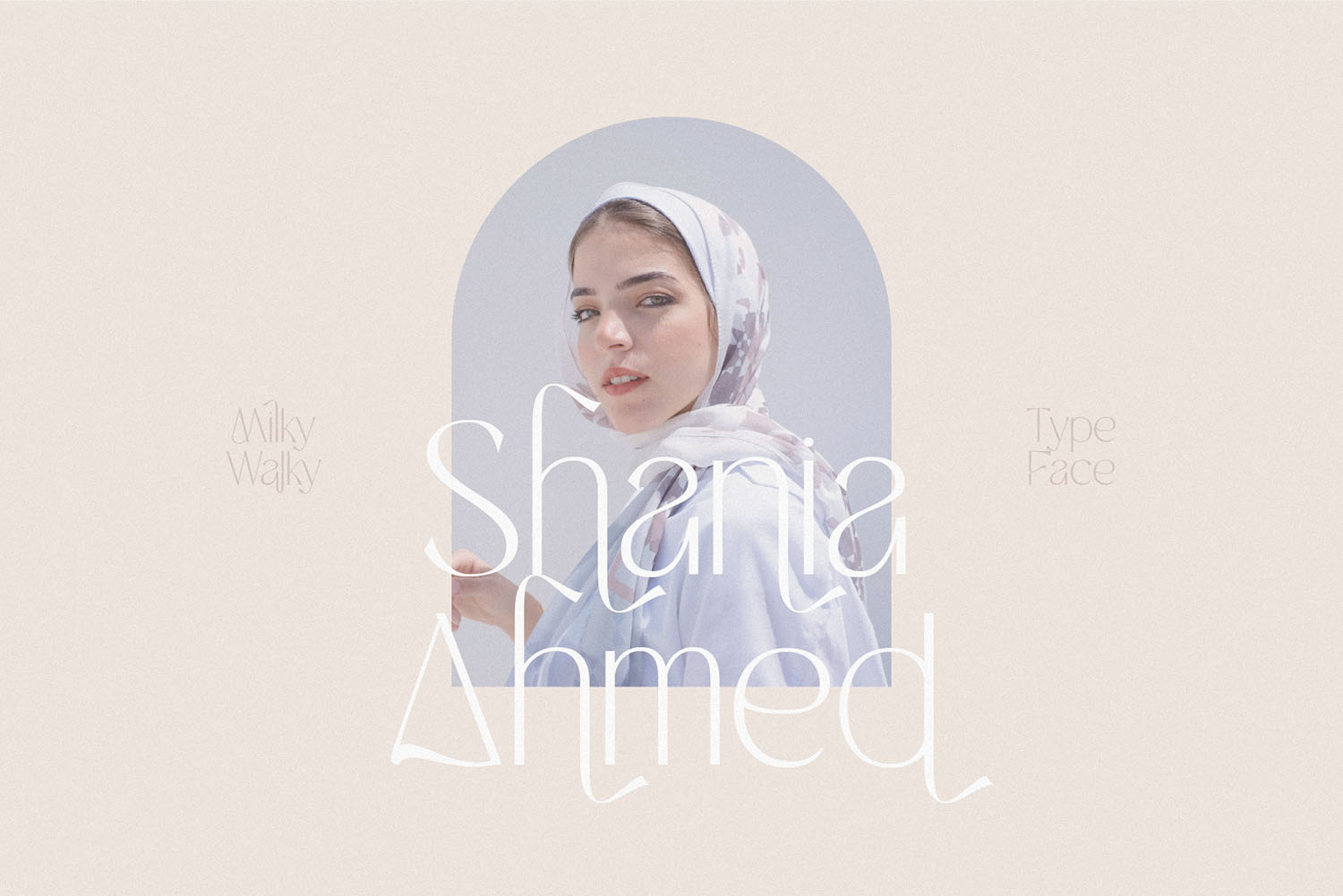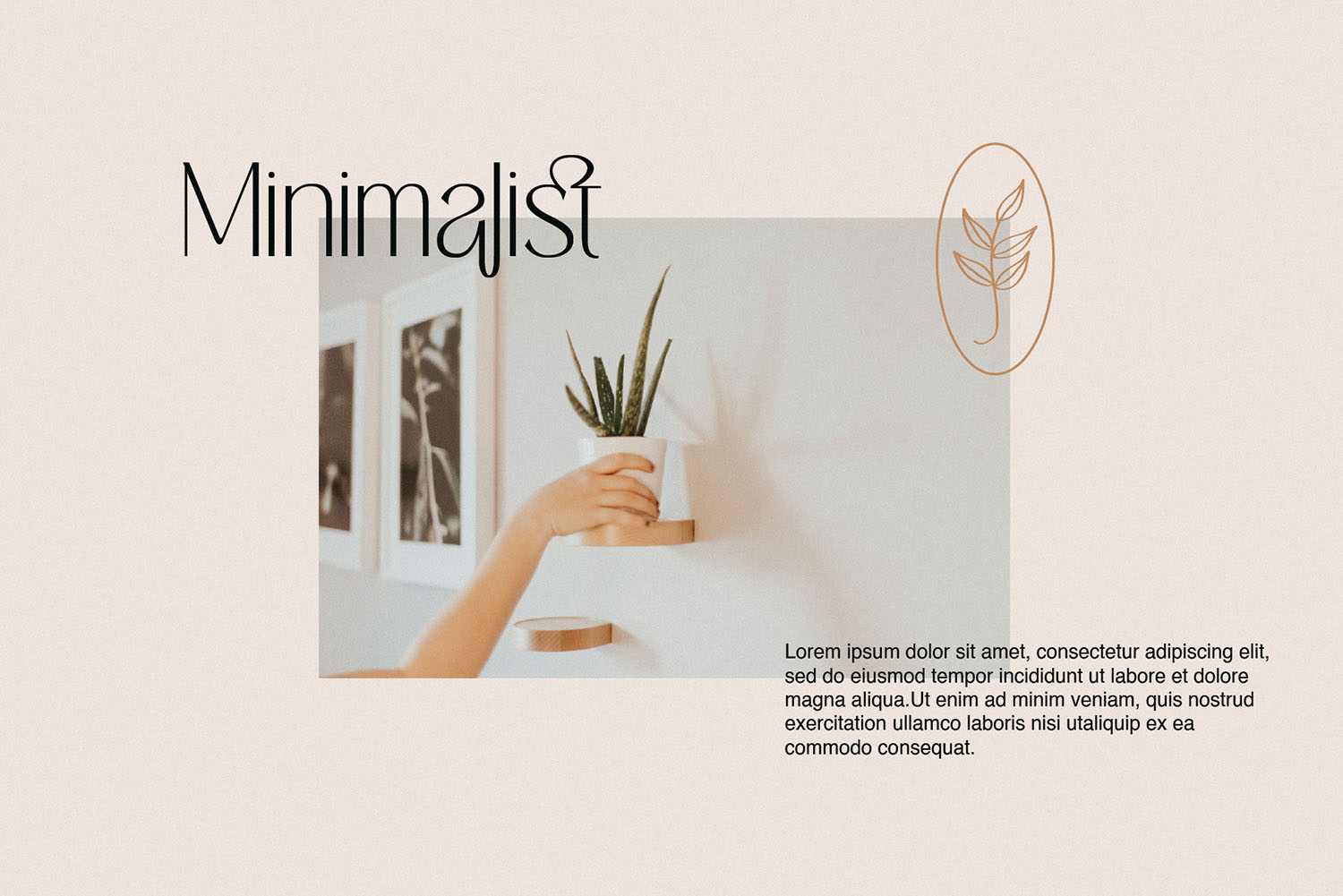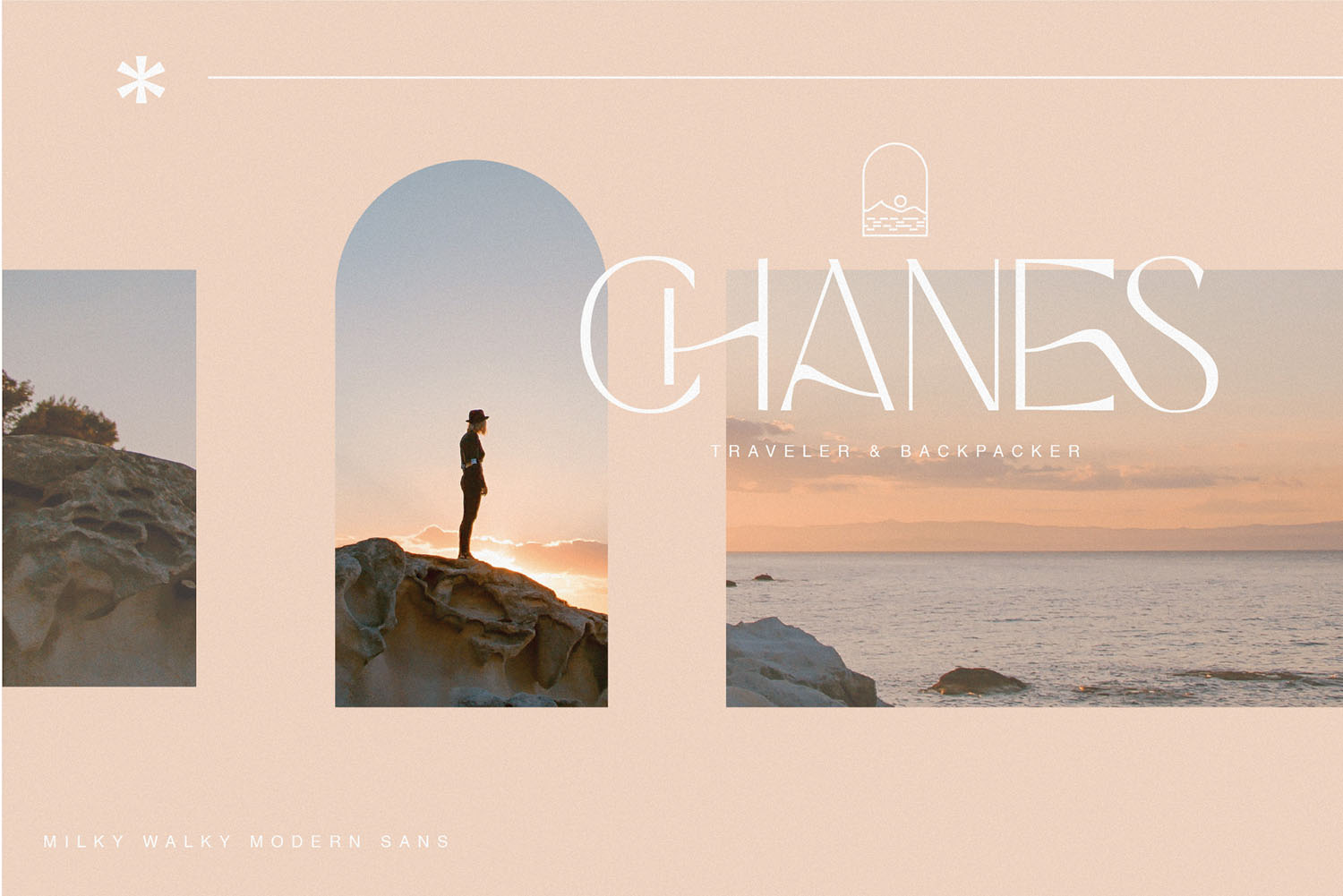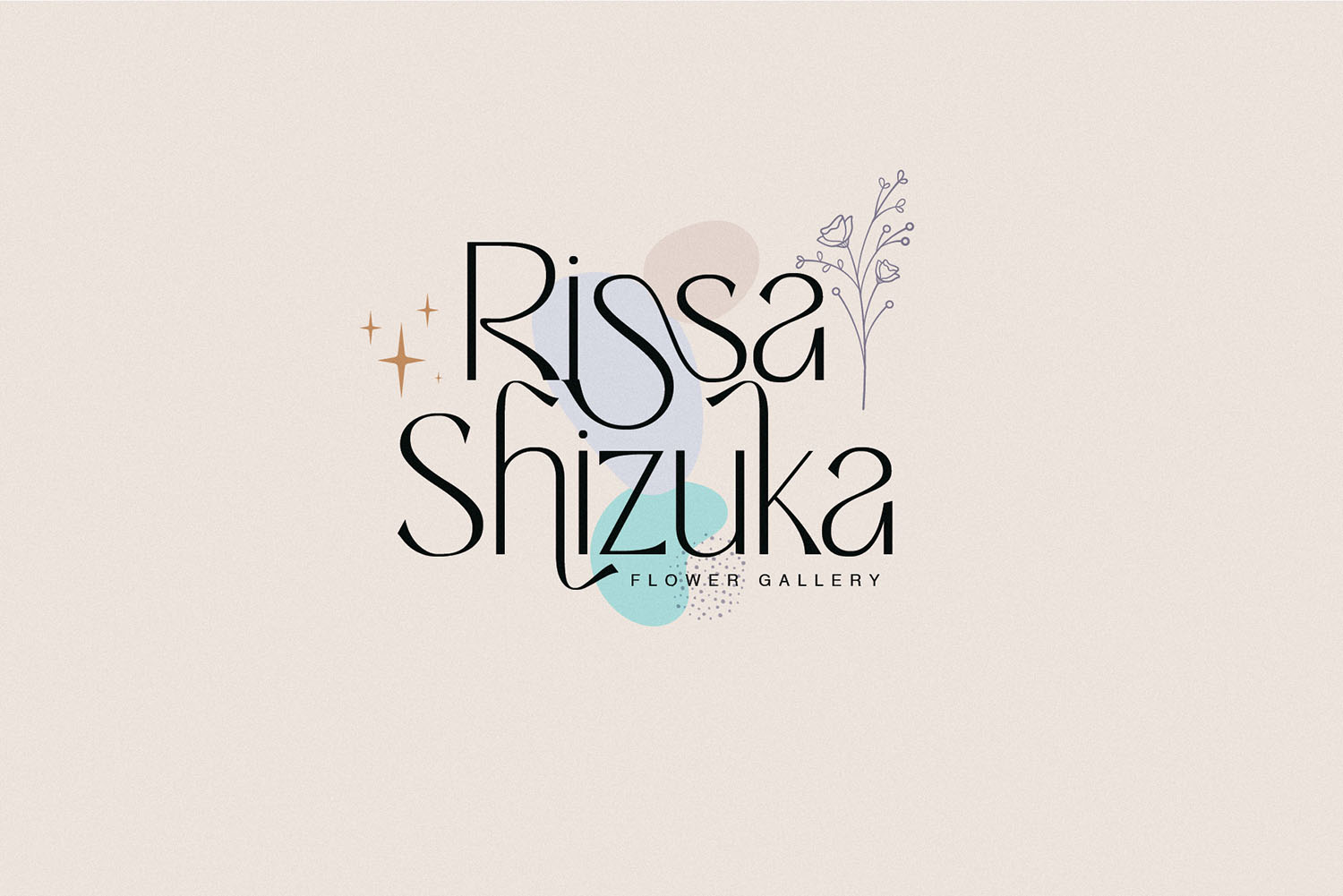
Milky Walky Free Font
Milky Walky Free Font is a contemporary and refined sans-serif font characterized by its sleek curves. Ideal for fashion branding or editorial designs, this font adds a touch of modern elegance to your projects. Incorporate it confidently, and witness the impressive results it brings to your work. This free typeface was designed by a talented Brandsemut. If you like it don’t forget to check out the full version.